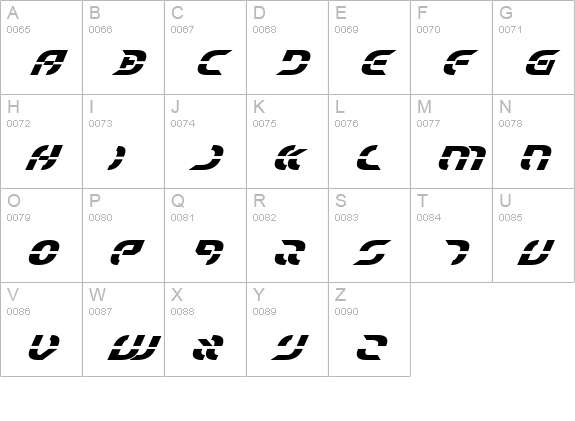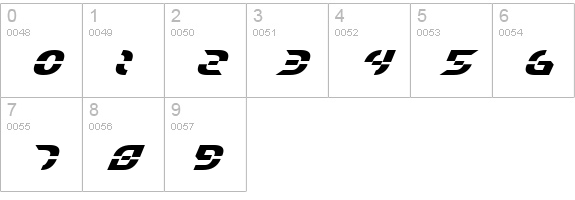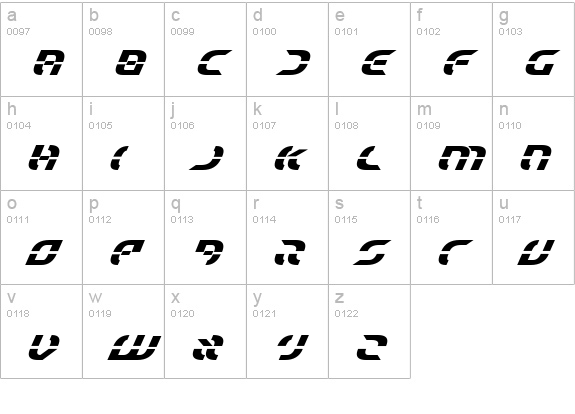
Starfighter Bold Italic is a strong, high-contrast, italic variant in the Starfighter typeface family \xE2\x80\x94 well suited to headlines, attention-grabbing titles, and strong calls-to-action.
Starfighter Bold Italic font is a striking and dynamic typeface that exudes energy and modernity. With its bold strokes and italicized flair, this font is perfect for adding a touch of sophistication and style to any design project. Whether you're creating a sleek logo, eye-catching poster, or stylish branding materials, Starfighter Bold Italic font is sure to make a bold statement. The best part? Starfighter Bold Italic font is completely free to download at FontsMarket.com. This means you can access this versatile font for your personal and commercial projects without breaking the bank. So why wait? Bring your designs to life with the exciting and contemporary Starfighter Bold Italic font today!